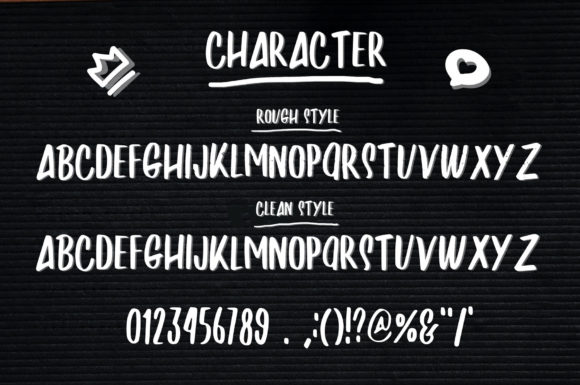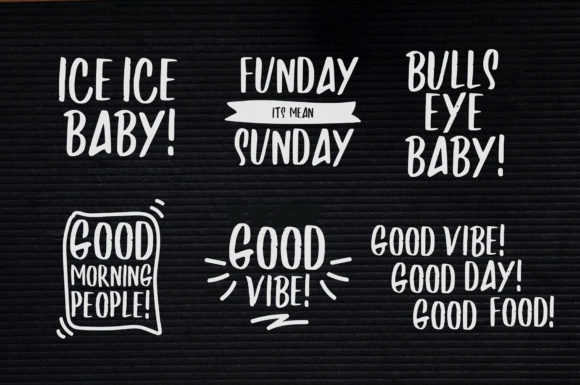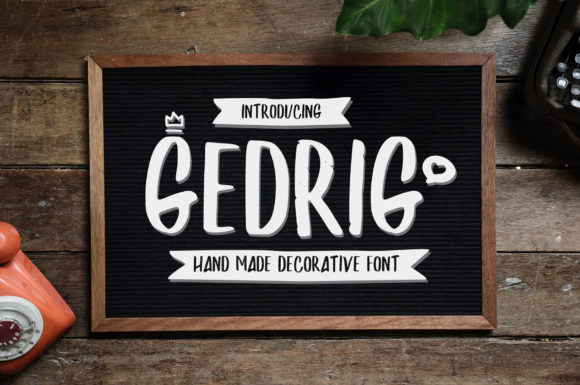
Gedrig Font: The Ultimate Cool, Clean, and Relaxed Display Font for Designers
Are you tired of using the same old fonts in your designs? Look no further! Gedrig Font is here to revolutionize your typography game. This cool, clean, and relaxed display font is perfect for designers and crafters who want to add a touch of personality to their work. In this article, we’ll dive into the world of Gedrig Font, exploring its features, benefits, and endless possibilities.
What is Gedrig Font?
Gedrig Font is a stunning display font that boasts a unique, paint-brushed look. Its clean and relaxed aesthetic makes it perfect for a wide range of designs, from logos and posters to social media graphics and more. With its distinctive charm, Gedrig Font is sure to capture the attention of your audience and leave a lasting impression.
Key Features of Gedrig Font
- Cool and Clean Design: Gedrig Font features a sleek and modern design that’s perfect for creating visually appealing graphics.
- Relaxed Aesthetic: The font’s relaxed vibe makes it ideal for designs that require a friendly and approachable tone.
- Paint-Brushed Look: The font’s paint-brushed texture adds a touch of authenticity and creativity to your designs.
- Highly Versatile: Gedrig Font can be used for a wide range of designs, from digital graphics to print materials.
Benefits of Using Gedrig Font
- Stand Out from the Crowd: With Gedrig Font, you can create designs that are truly unique and eye-catching.
- Endless Possibilities: From logos and branding to social media graphics and more, Gedrig Font can be used in countless ways.
Endless Possibilities with Gedrig Font
- Logos and Branding: Use Gedrig Font to create a unique and memorable logo for your business or brand.
- Social Media Graphics: Create eye-catching social media graphics that showcase your brand’s personality.
- Posters and Flyers: Use Gedrig Font to create stunning posters and flyers that grab attention.
- Digital Graphics: From web headers to email newsletters, Gedrig Font is perfect for creating digital graphics.
Tips for Using Gedrig Font
- Experiment with Colors: Gedrig Font looks great in a range of colors, so don’t be afraid to experiment and find the perfect hue.
- Play with Texture: The font’s paint-brushed texture is a key part of its charm, so try combining it with other textures for added interest.
- Keep it Simple: Gedrig Font is a statement font, so keep your design simple and let the font do the talking.
| Font Name | Gedrig Font |
| Author | Randoezim |